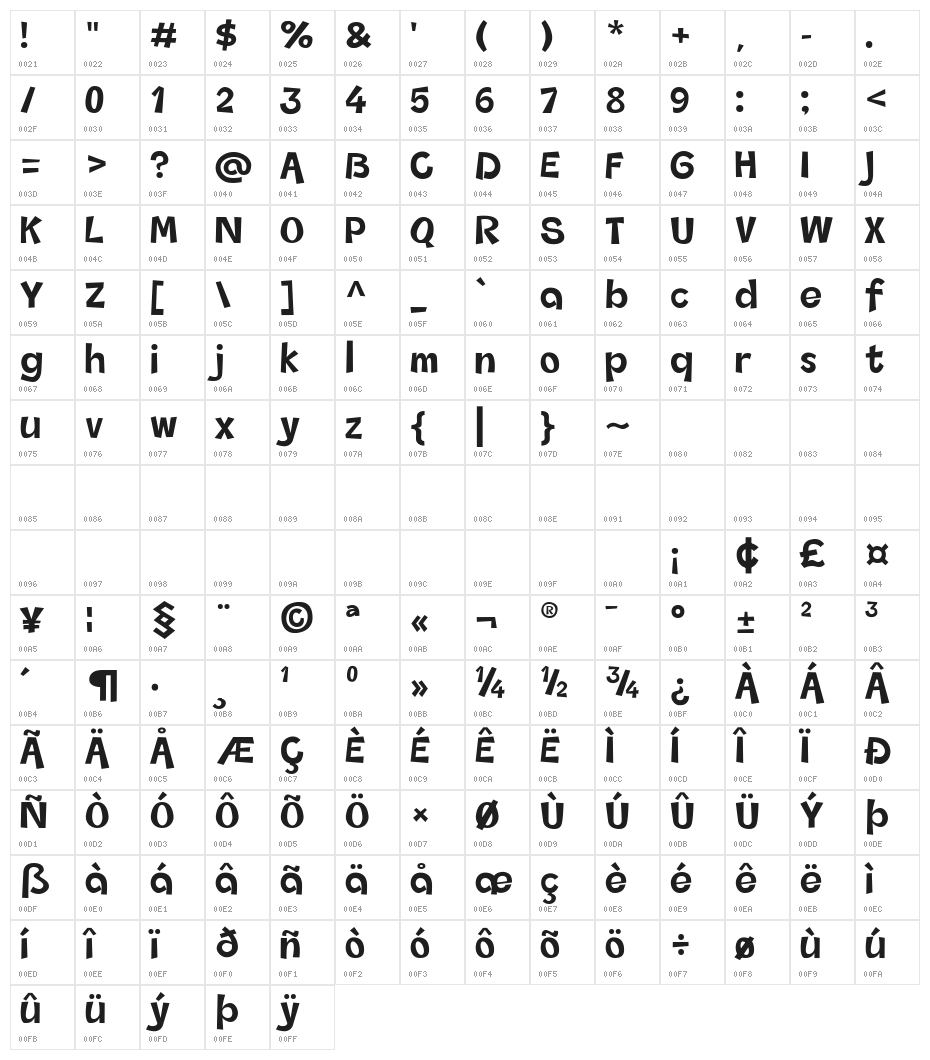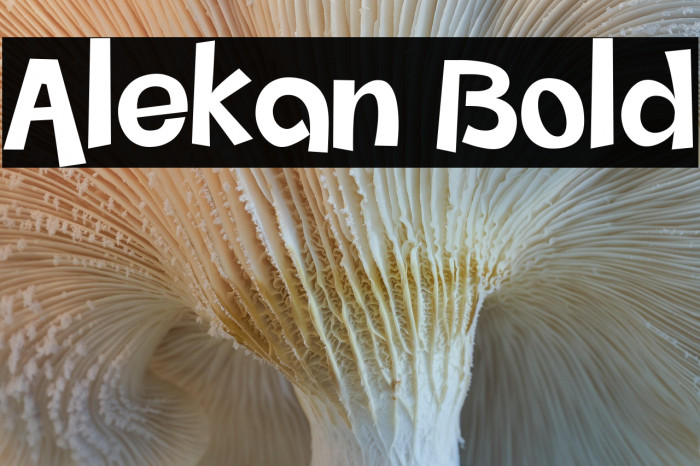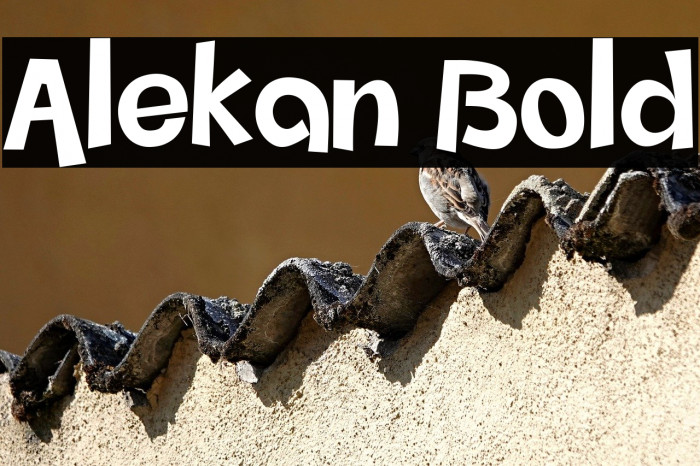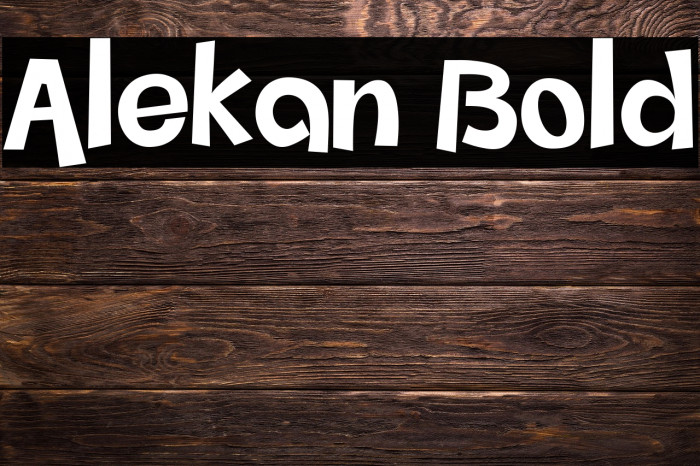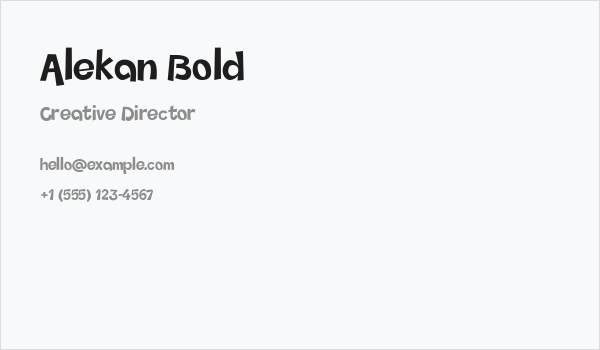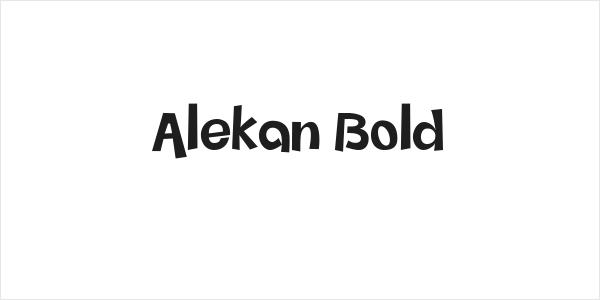
Alekan Bold Font
| Stile generale | Playful, Whimsical, Hand-drawn |
| Caso d'uso | Headlines, Posters, Branding |
| Progetti proposti | Ideal for children's books, playful branding, posters, and creative projects that require a fun and engaging typeface. |